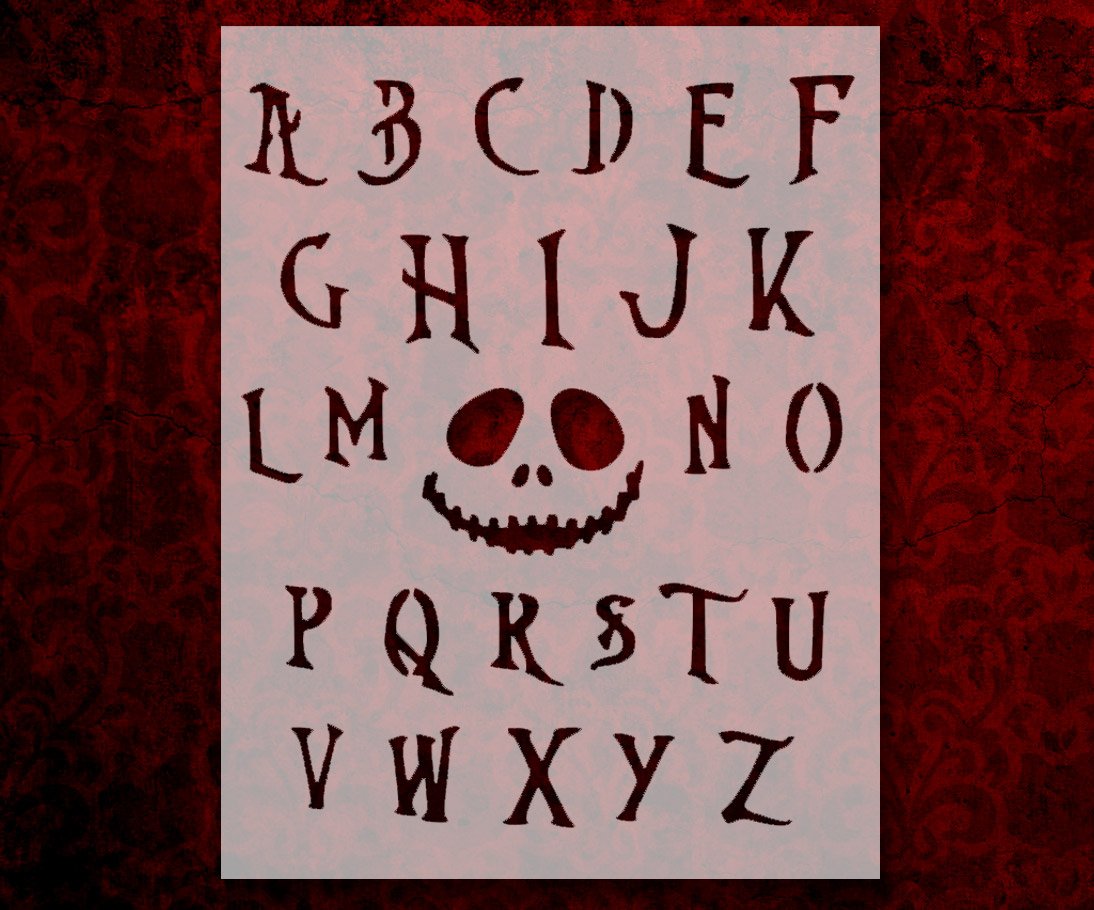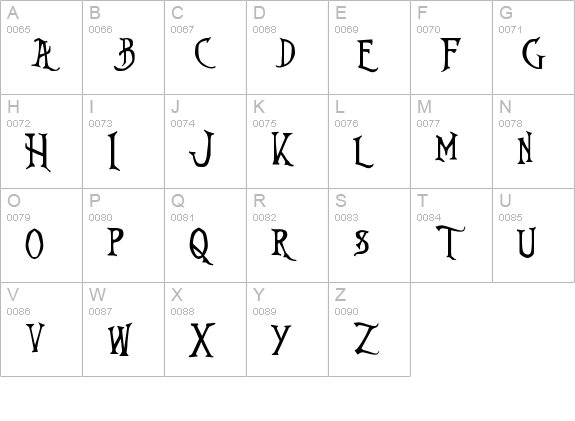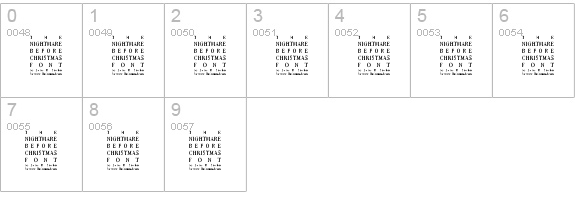
Free Nightmare Before Christmas Font Numbers Free Typography Fonts
nightmare before christmas font numbers
Nightmare before christmas font numbers. Free download of nightmare before christmas font. Numbers 1 10 numbers 1 15. Nightmare before christmas is a high quality disney font that is designed by filmfonts and is available for free download and personal use. The nightmare before christmas font has been downloaded 305674 times.
Fancy gothic various scary. The free version provides all uppercase and lowercase letters and a few special characters too. 1673472 downloads 1446 yesterday 6 comments free for personal use 2 font files download donate to author the perfect christmas a by stereotype. Sleepy hollow by filmfonts.
Nightmare before christmas font family. This remarkable font has available only in regular style with 85 number of characters in a free version. Choose color and quantity at checkout. Released in 2002 by filmfonts and licensed for personal use only.
Nightmare before christmasttf. The nightmare before christmas title lettering is very similar to a font named burtons nightmare. Nightmare before christmas truetype personal use. Download the nightmare before christmas font by film himmel jens r.